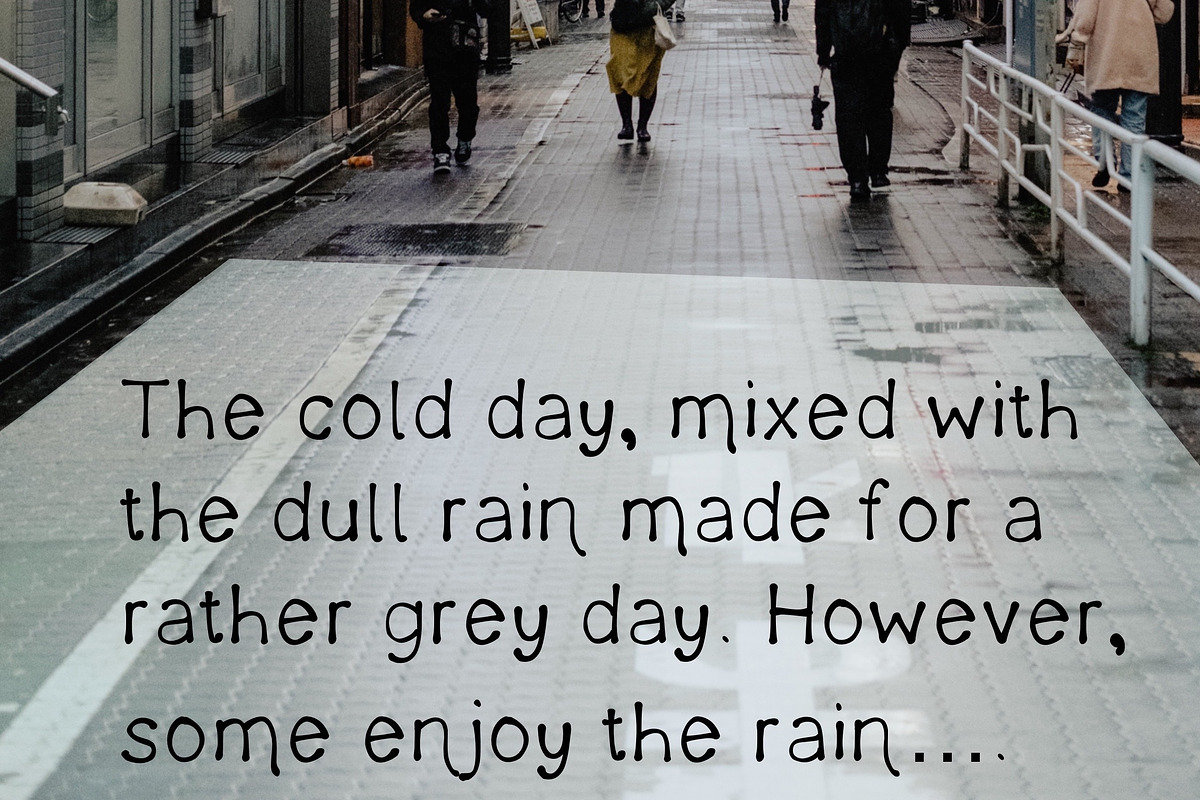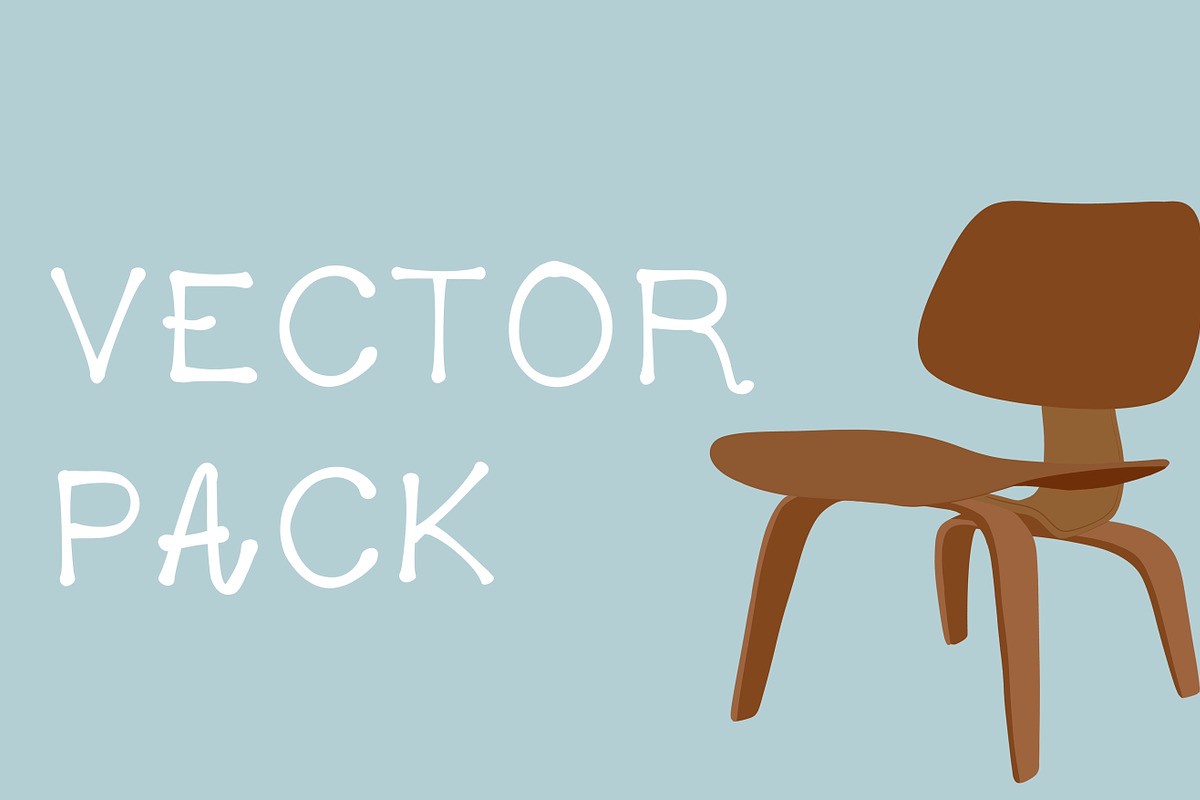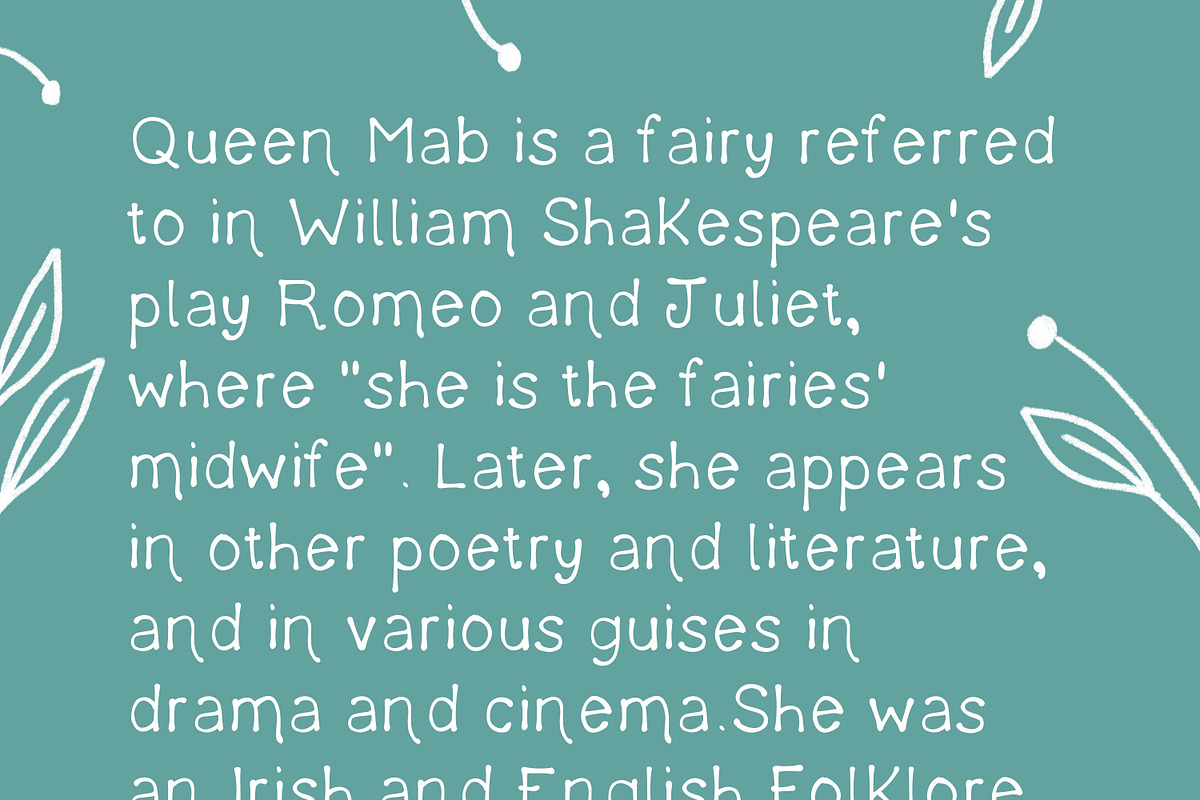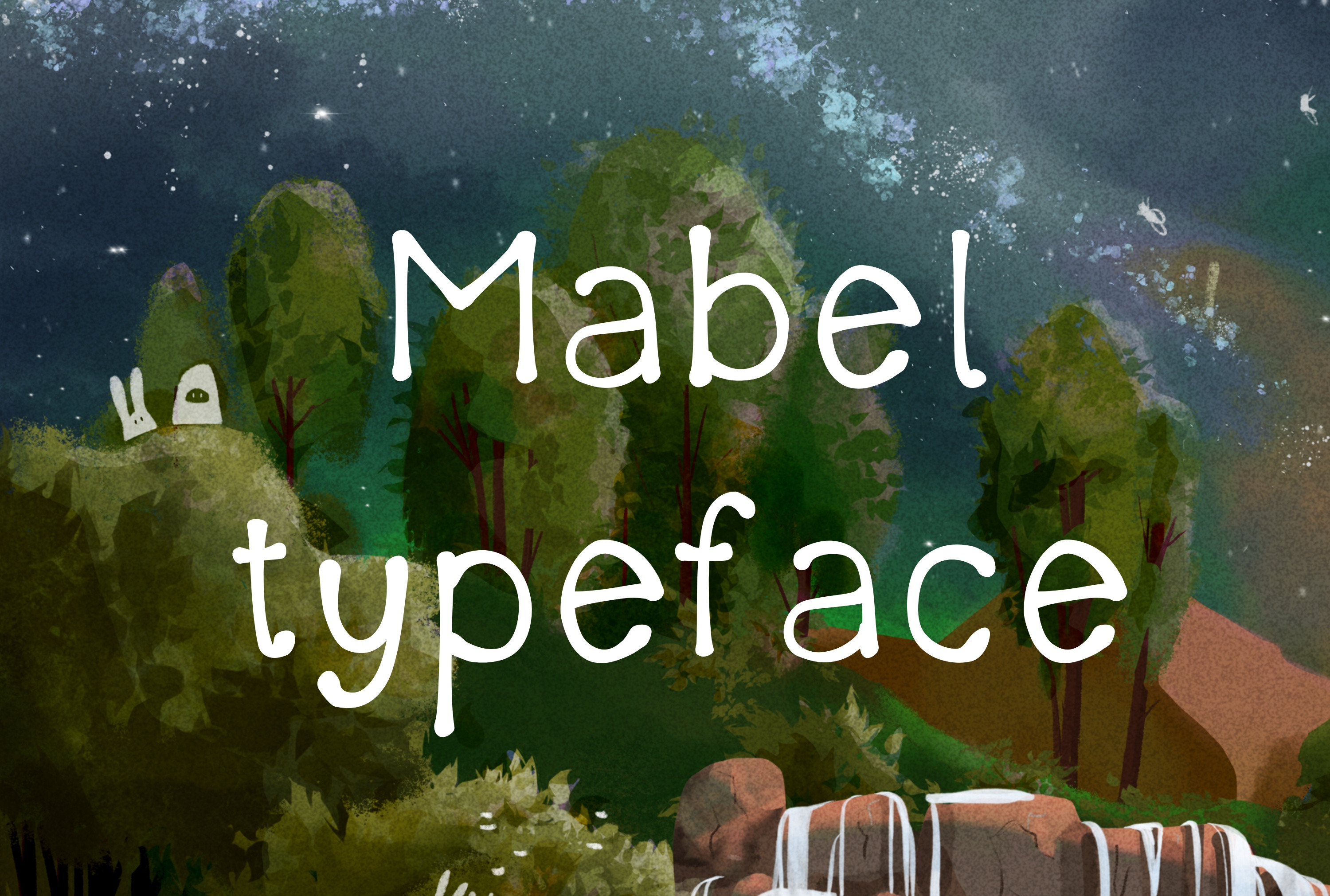
Mabel storybook font
fun, classic book font, great for bringing a bit of personality to any design, and get for children's books, logo, book, blog or website! (or literally anything else).
Hand made my me :)